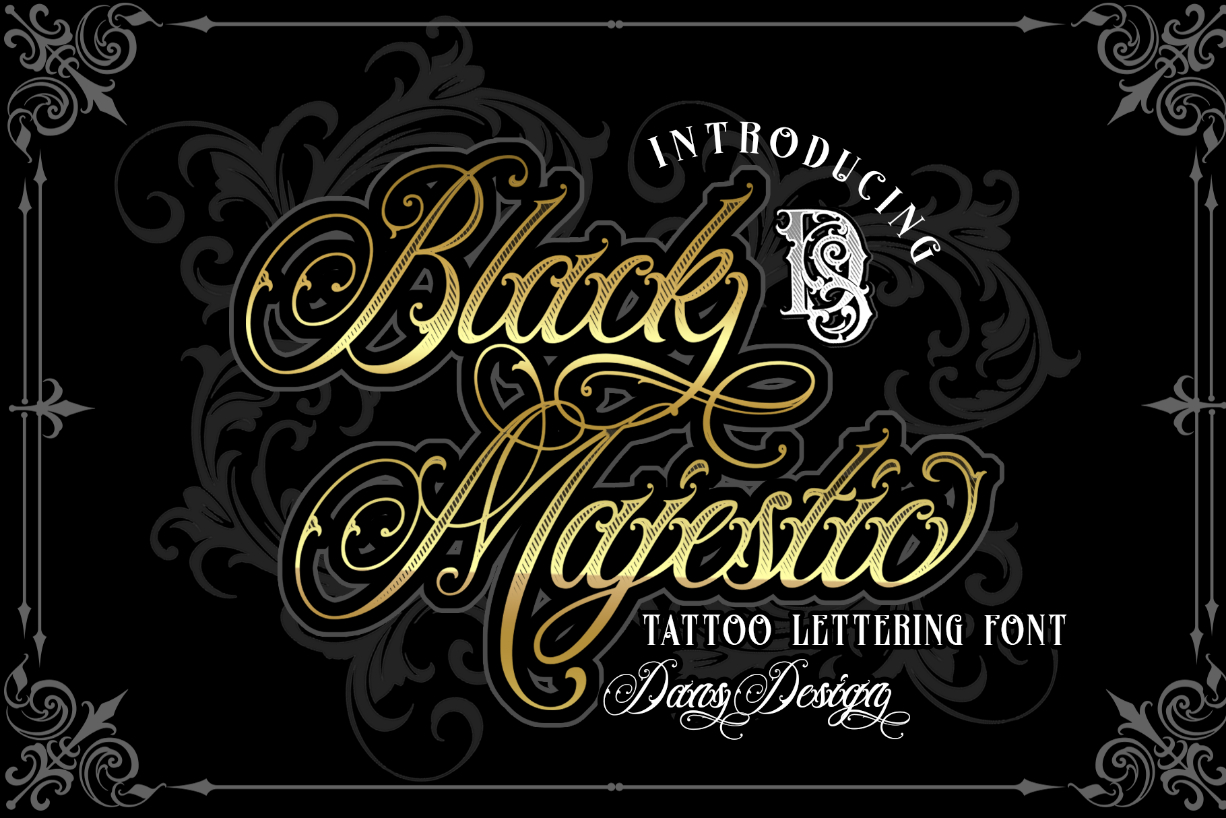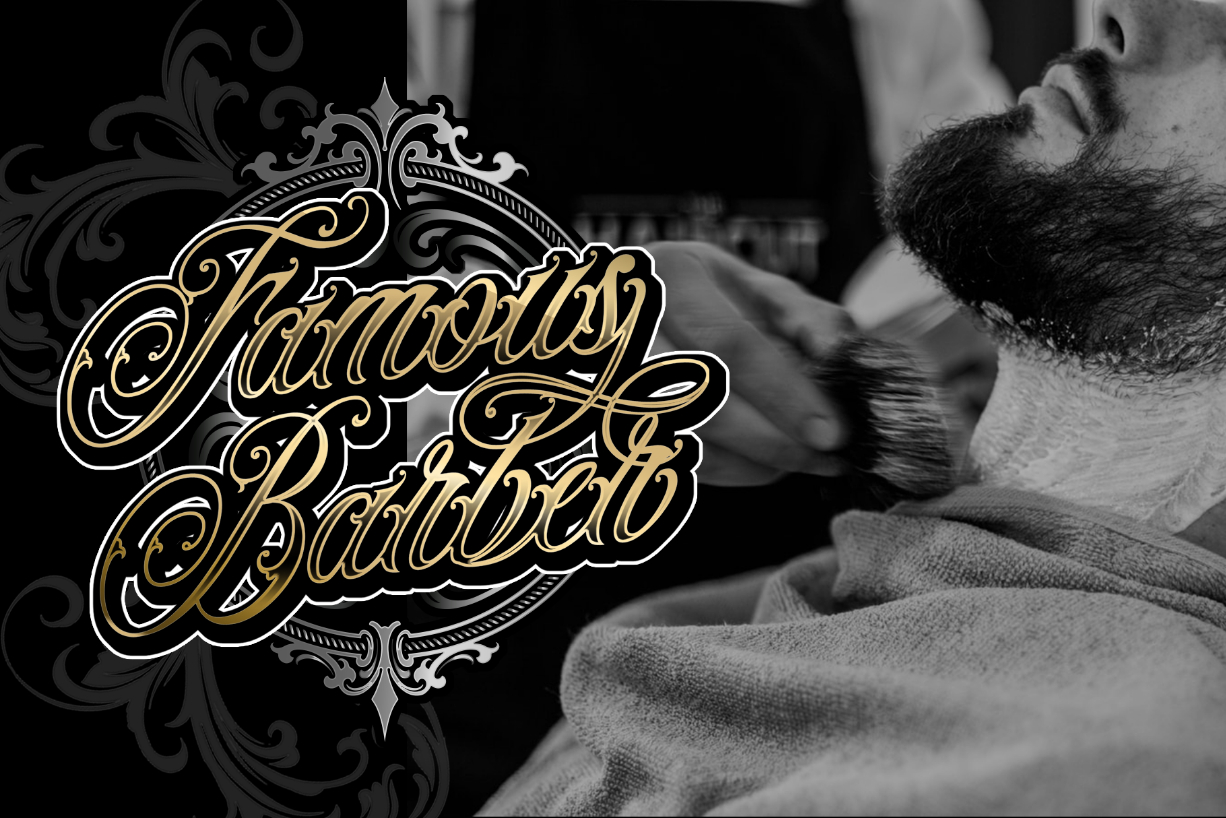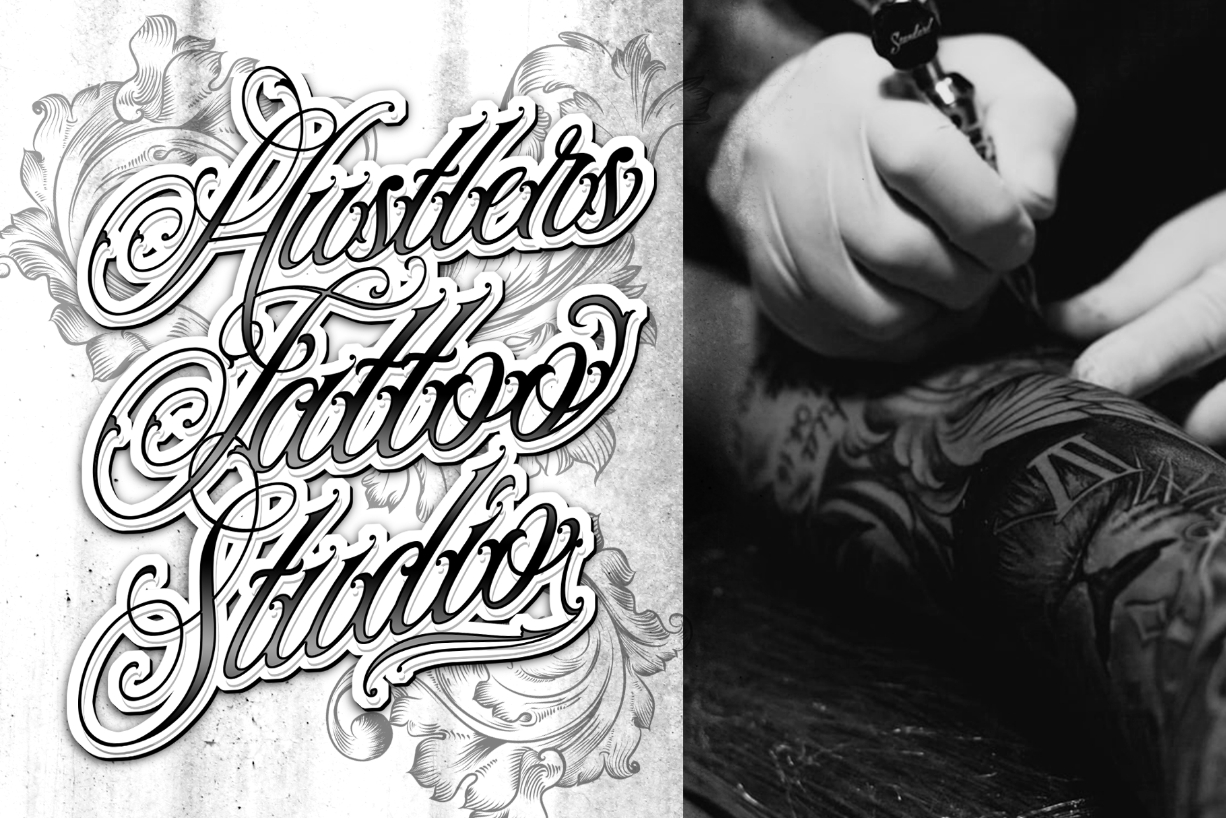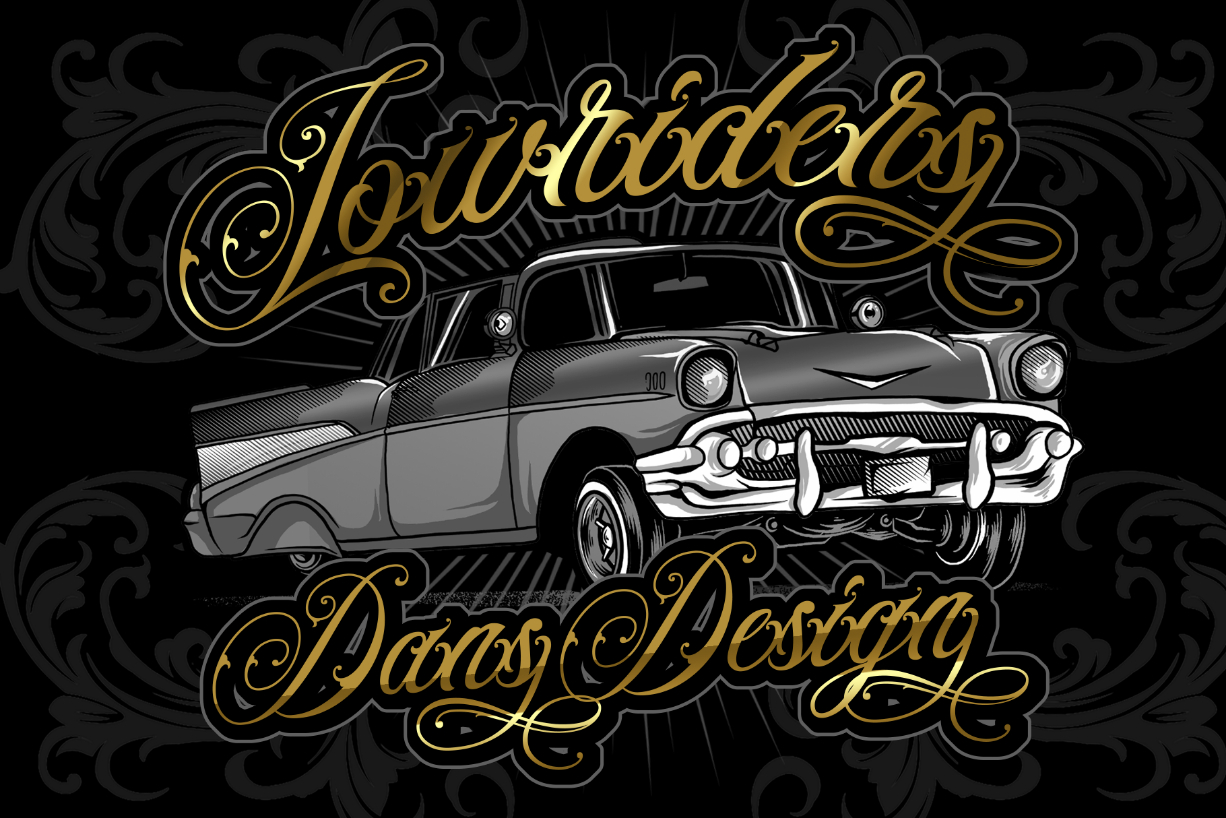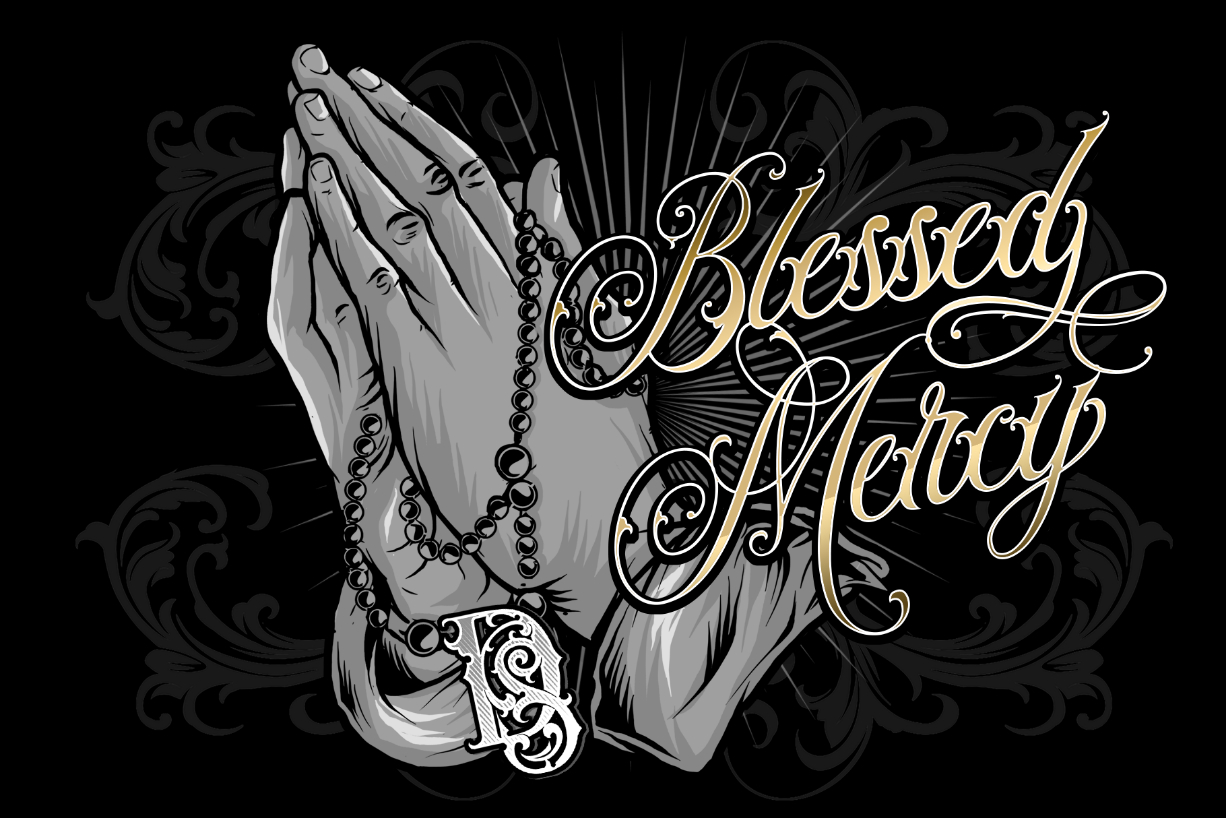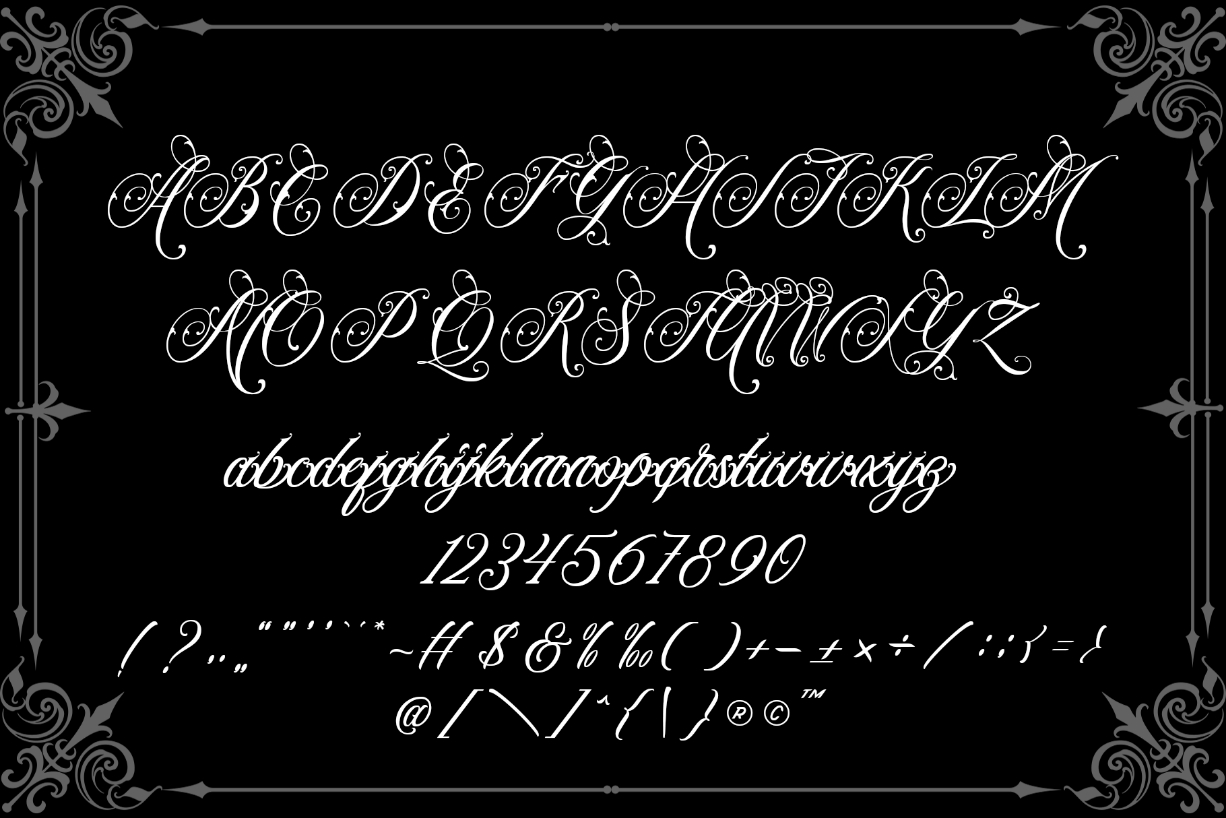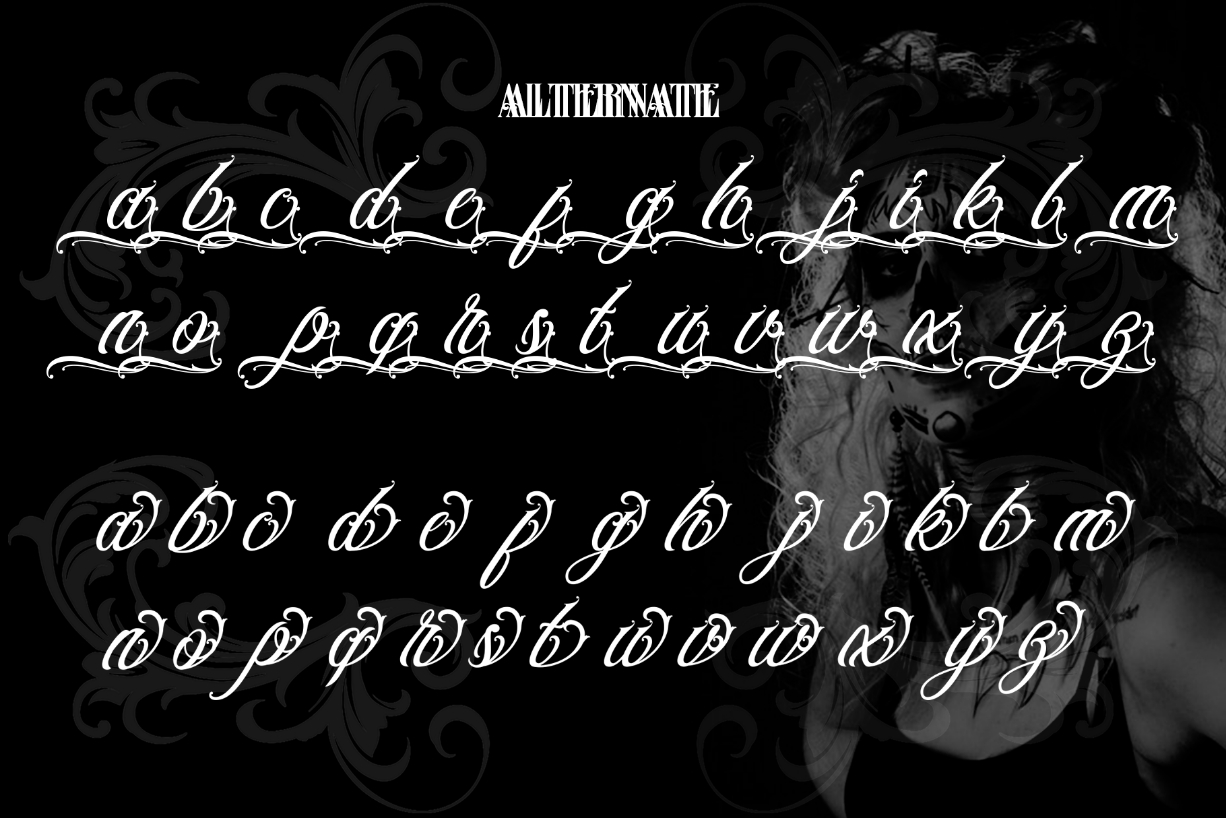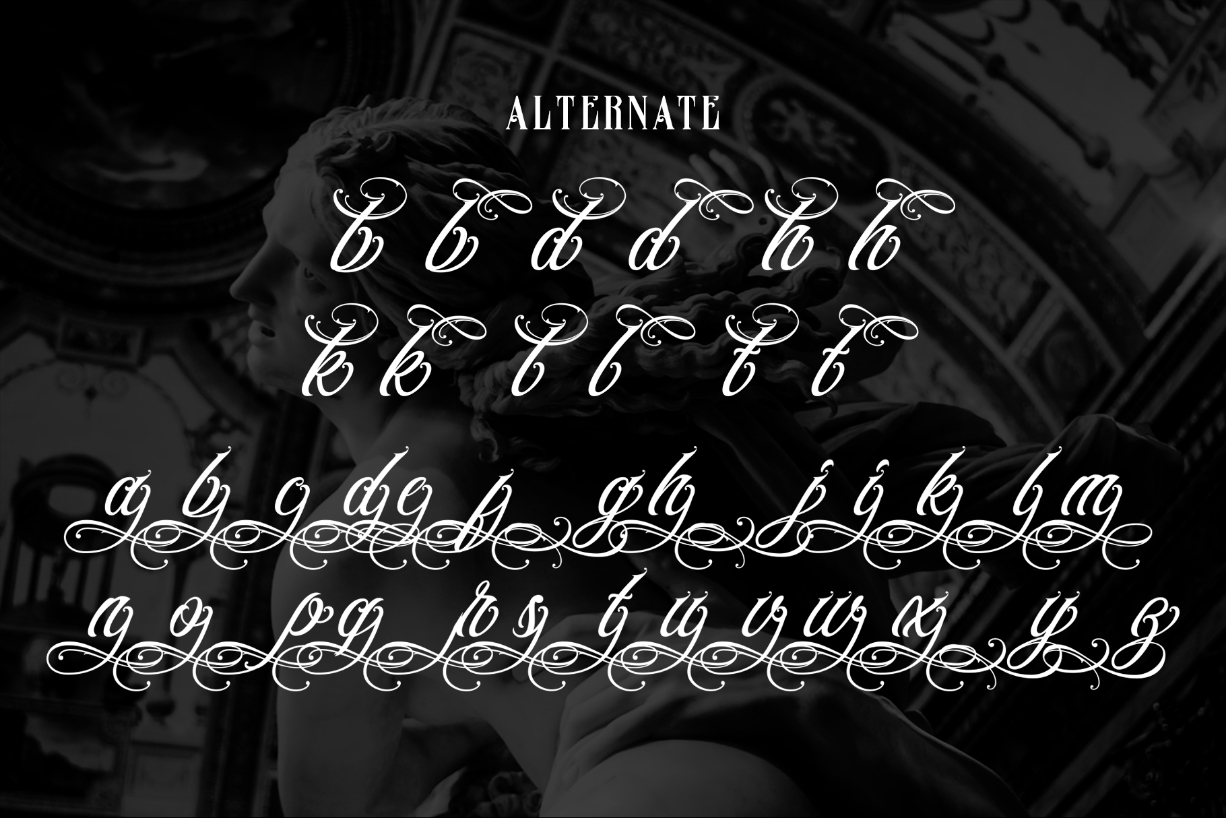
Black Majestic Font
About Black Majestic Font
Black majestic is a bold blackletter font. Its unique and interesting shape makes this design perfect for tattoos, product logos, poster titles, headlines, packaging, badge, and more! This font is PUA encoded which means you can access all of the glyphs and swashes with ease!